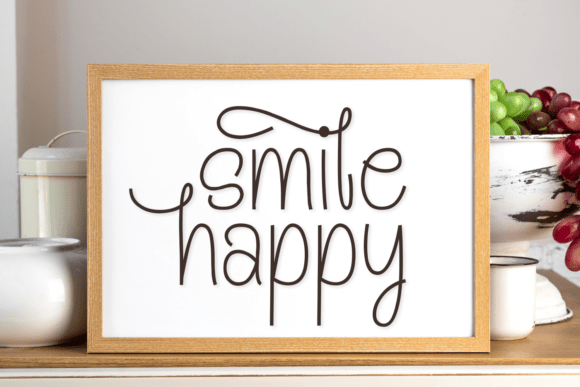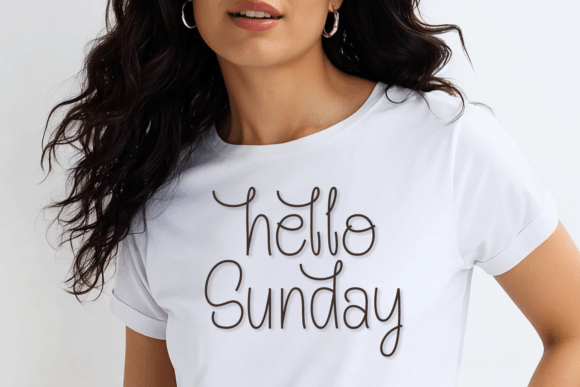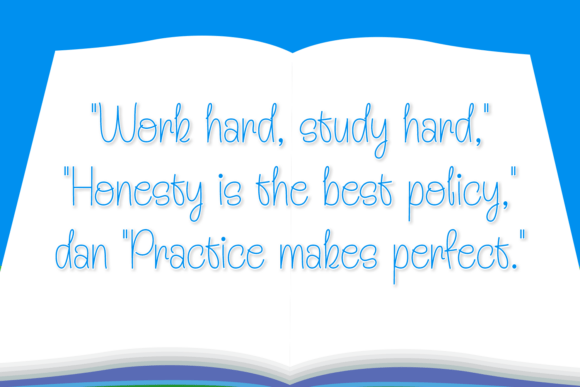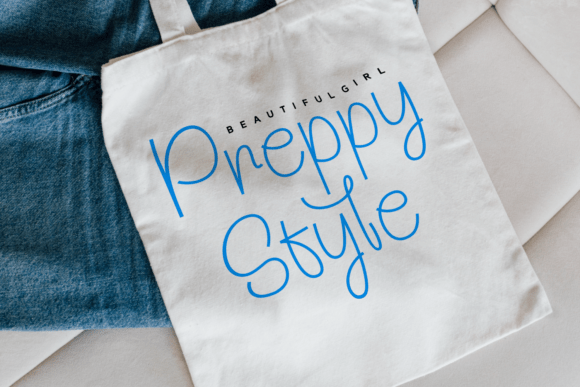
Introduction to Grand School Font
Do you remember the excitement of back-to-school season as a child? The thrill of picking out a new backpack, notebook, and pencils? For many of us, the joy of creating and expressing ourselves never truly fades away. As a designer, you’re constantly on the lookout for the perfect tools to bring your creative projects to life. That’s where the Grand School Font comes in – a delightful blend of playful, trendy, and minimalist styles that’s sure to spark your imagination.
With its unique handwriting and handwritten styles, the Grand School Font is an ideal choice for crafting daily notes, designing mugs, and creating eye-catching visuals for social media and blog posts. Whether you’re a seasoned designer or just starting out, this high-quality font is a valuable addition to your design resource arsenal.
Key Features of Grand School Font
- High-quality design resource for creative projects, perfect for educational institutions and learning materials.
- Features a transparent background, making it ideal for use on images and graphics with complex backgrounds.
- Available in a single font size, with a resolution of 72 dpi, suitable for use on digital devices and online platforms.
- Unique characteristics include a modern and elegant design, making it perfect for use in creative projects and design materials.
- Designed to be versatile and easy to use, making it an excellent addition to any design resource collection.
Honest Review: Grand School Font
I recently had the chance to work with the Grand School Font, and I must say it’s a great addition to any design project. As a designer, I’m always on the lookout for high-quality fonts that can elevate my creative work, and this font definitely delivers.
- ✨ The font’s playful, yet professional vibe makes it perfect for a variety of design projects, from educational materials to marketing campaigns.
- ✨ The transparent background option allows for seamless integration with images and other design elements, making it easy to create visually appealing compositions.
- ⚠️ The font may not be suitable for very formal or traditional designs, as its playful nature can come across as too casual in some contexts.
- ⚠️ Some users may experience issues with font rendering, particularly at smaller sizes or on certain operating systems.
Overall, I’m impressed with the Grand School Font and would definitely recommend it to designers looking for a fun and versatile font to add to their collection.
For optimal results, use the Grand School Font on a transparent background to make it stand out. Experiment with different font sizes, colors, and styles to add depth and visual interest to your design.
The Grand School Font is ideal for use in various creative projects such as:
- Brochures and flyers.
- Business cards and stationery.
Alternatives to Grand School Font